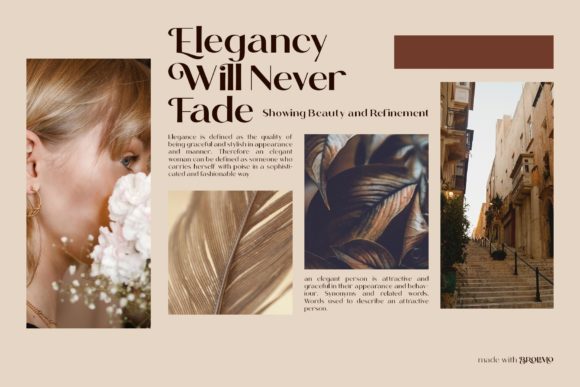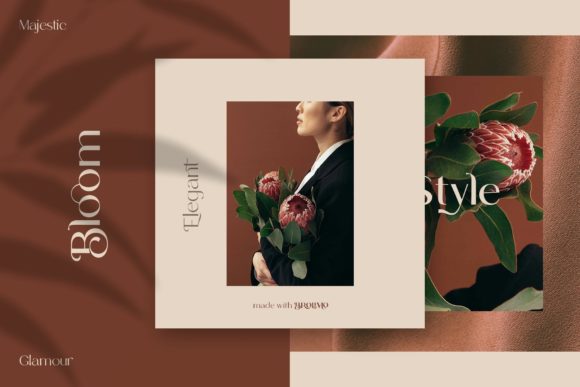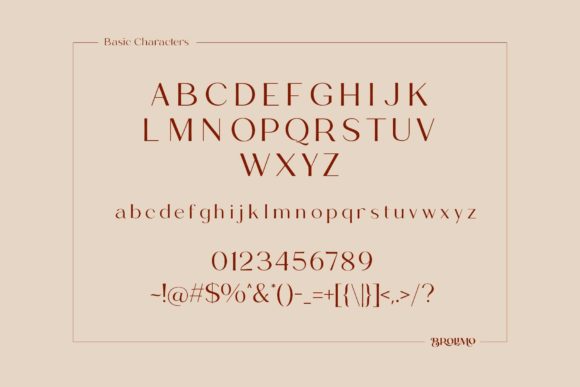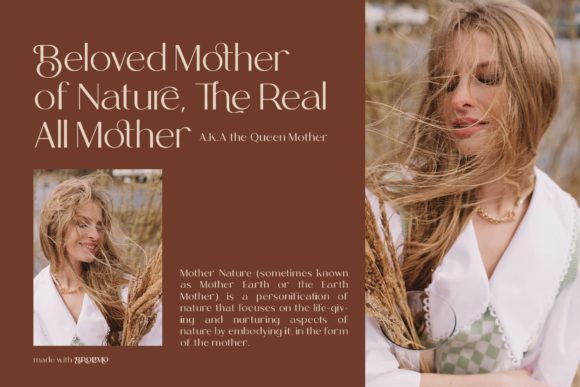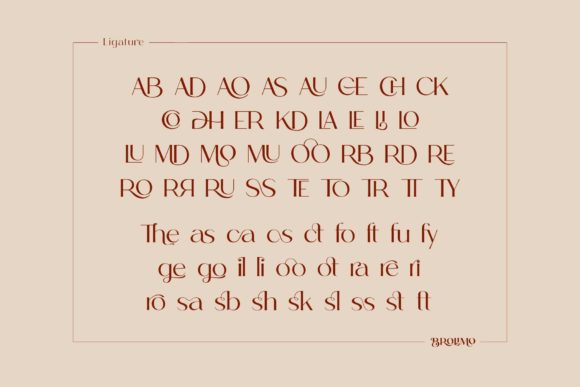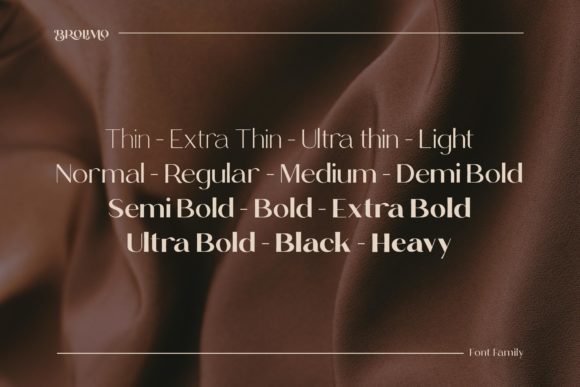
Have you ever stared at a blank canvas, struggling to find the perfect font to bring your vision to life? We’ve all been there – the blank page staring back at us, the cursor blinking impatiently, and the pressure to create something amazing. But what if we told you that there’s a font that can take your creativity to the next level?
Enter the Brolimo Font, a stunning display font that’s as elegant as it is trendy. This beautifully crafted font is PUA encoded, making it a breeze to access all of its glyphs and swashes. Whether you’re designing a logo, creating a social media graphic, or crafting a wedding invitation, the Brolimo Font is the perfect addition to your toolkit.
As a designer, you know that the right font can make all the difference in the world. And with the Brolimo Font, you’ll be able to add a touch of sophistication and style to any project, making it truly unforgettable.
Brolimo Font Key Features
- Unique Characteristics: The font features a unique blend of modern and vintage elements, with clean lines, geometric shapes, and subtle textures, making it ideal for creating visually appealing and eye-catching designs.
- Language Support: Brolimo Font supports a wide range of languages, including Latin, Cyrillic, Greek, and many others, making it a versatile choice for global branding and marketing campaigns.
- Customization Options: The font offers a range of customization options, including bold, italic, and condensed styles, allowing designers to create unique and tailored designs that meet their specific needs.
Brolimo Font Review
I recently had the chance to work with the Brolimo Font, and I must say it’s an interesting combination of modern and vintage elements. ✨ The font’s unique blend of geometric and handwritten styles gives it a quirky, eye-catching feel that’s perfect for creative projects.
One of the things I appreciate about Brolimo is its flexibility. It comes in a range of weights and styles, from light and delicate to bold and playful. ✨ This makes it easy to use in a variety of contexts, from titles and headings to body text and quotes.
However, there are some limitations to consider. ⚠️ For one, the font’s irregularities can sometimes make it difficult to read at small sizes. Additionally, some of the more ornate styles may not be suitable for projects that require a more minimalist aesthetic.
- Unique blend of geometric and handwritten styles
- Range of weights and styles available
- Perfect for creative projects and titles
- May be difficult to read at small sizes
- Not suitable for minimalist projects
Overall, I think Brolimo Font is a solid choice for designers looking for a unique and eye-catching font. While it may not be suitable for every project, its flexibility and versatility make it a great addition to any design toolkit.
Is Brolimo available in different font weights?
Yes, Brolimo is available in multiple font weights, including light, regular, medium, bold, and heavy. This allows designers to choose the perfect weight to match their design’s tone and emphasis.